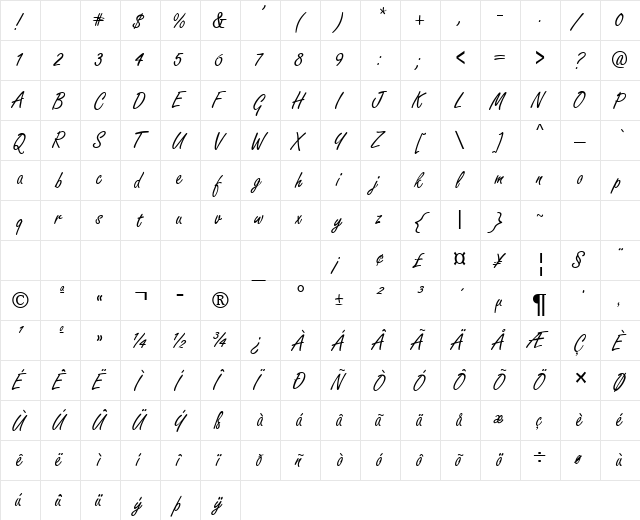
Freeze Normal
Design Context for Freeze Typeface
Freeze is a composed and adaptable typeface that performs quietly and consistently across a wide range of design contexts.